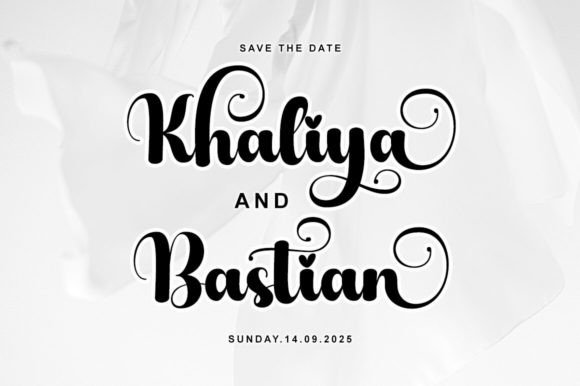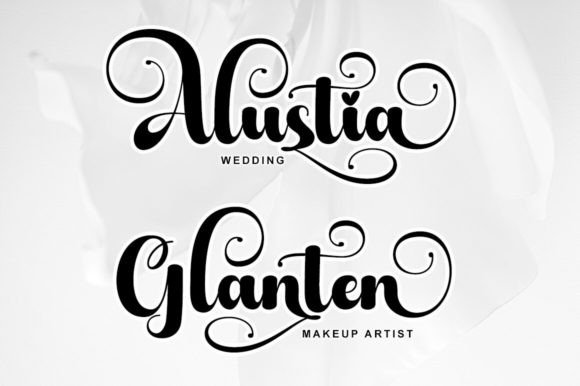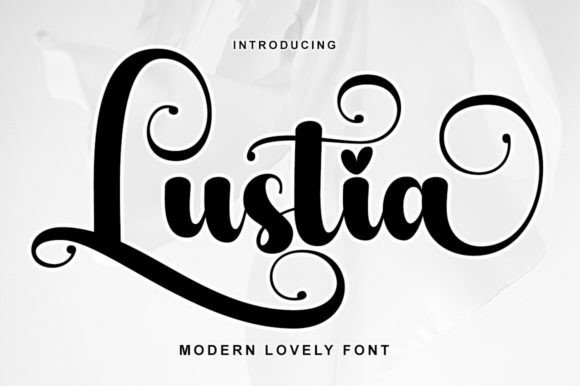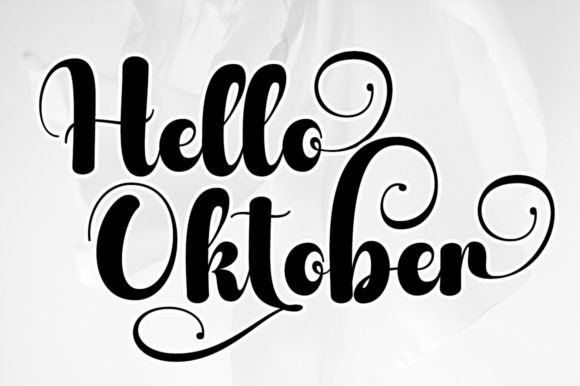
Lustia Font
About the Lustia Font
Elevate your designs with Lustia Font, a font that combines sophistication with readability. Lustia Script with beautiful handwriting style. Equipped with glyphs. Lustig Script is perfect for branding projects, homeware design, product packaging, use in business cards, invitation cards, etc. Simply as a stylish text overlay on a background image or anything that needs a touch of elegance.
Lustia’s elegant, slightly whimsical personality makes it ideal for projects requiring a touch of sophistication without being overly formal. It excels in headlines, short text blocks on packaging, and branding elements where a handcrafted feel is desired. Think boutique hotels, artisanal food brands, or high-end stationery.
However, its script nature makes Lustia unsuitable for body copy or UI elements requiring high readability. The intricate details might become distracting at smaller sizes.
Pairing Lustia with a clean sans-serif like Montserrat for body text or a geometric sans-serif like Futura for a more modern feel creates a strong visual contrast and balance. For a warmer aesthetic, consider pairing it with a classic serif font such as Garamond.
Lustia Font Usage Examples
Lustia Font Example